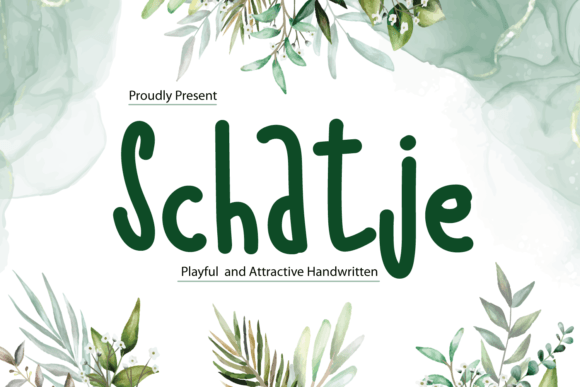
Introducing Schatje Font, the perfect choice for adding a touch of playfulness and quirkiness to your designs! Crafted with love by NulieQ, this stunning script font is bound to captivate your audience and elevate your projects to new heights.
With Schatje Font, your creativity knows no bounds. Whether you're looking to create eye-catching quotes, design trendy shirts, or promote your spa with captivating advertisements, this font is your go-to solution. Its handwritten style adds a personal and authentic feel, instantly drawing attention and leaving a lasting impression.
What sets Schatje Font apart is its delightful randomness. Every letter and character is uniquely shaped, making your designs truly special and interesting. Say goodbye to mundane and repetitive fonts, and embrace the uniqueness that Schatje Font brings to the table.
Immerse yourself in the world of endless possibilities as you explore the versatility of Schatje Font. Its wide range of applications allows you to unleash your creativity and create designs that truly stand out from the crowd. Let your imagination run wild and watch as your projects come to life with this remarkable font.
Embrace the power of emotion with Schatje Font. Its playful nature evokes a sense of joy and happiness, instantly connecting with your audience on a deeper level. Whether you're aiming to create a lighthearted and fun atmosphere or convey a heartfelt message, Schatje Font has got you covered.
Unleash the magic of Schatje Font and let your designs speak volumes! Get ready to make a statement like never before.